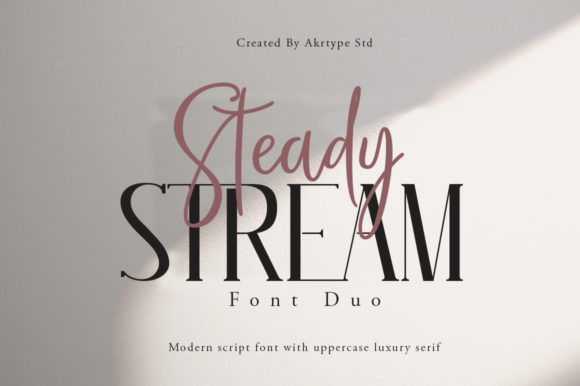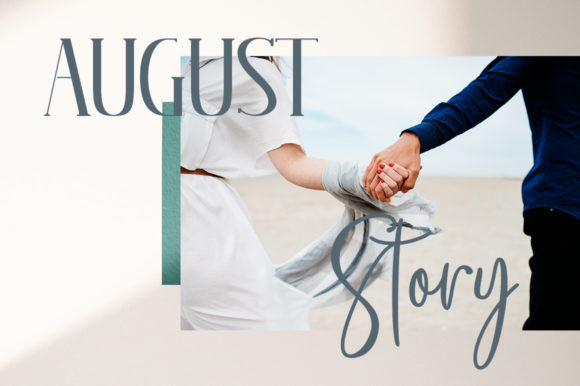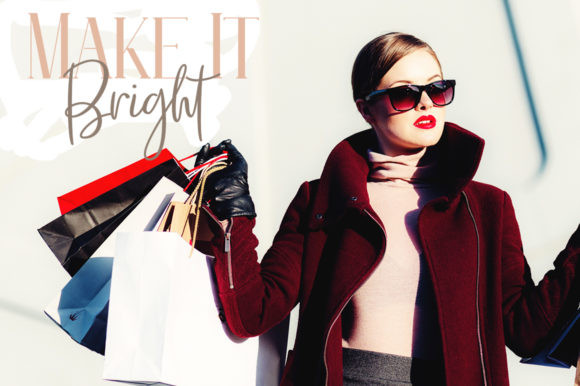
Steady Stream Font
Steady Stream is a modern duo font. It features a beautiful script with a luxury serif uppercase. Combining these two fonts on your next design will give a great and sophisticated feel.